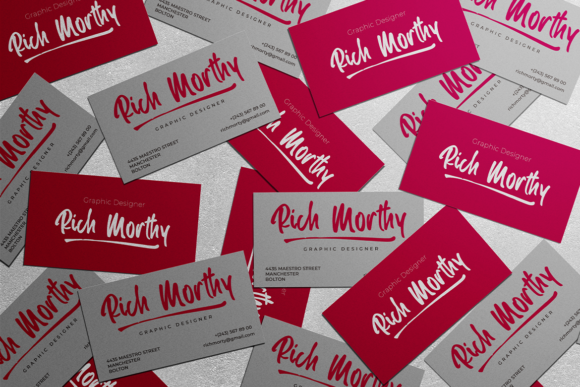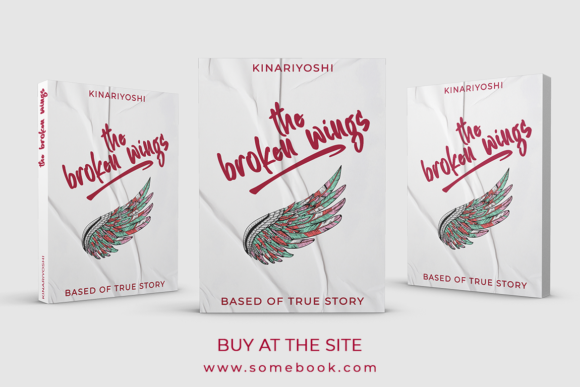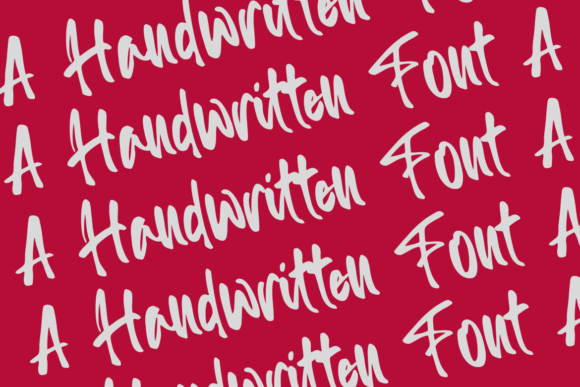
Hikayoshi is an incredibly unique, Japanese inspired display font.
It will look stunning on any food menu, poster flyer or print Hikayoshi is PUA encoded which means you can access all of the amazing glyphs and ligatures with ease.
Hikayoshi Font offers exceptional quality and versatility, making it a valuable addition to your design toolkit. Whether you’re creating for personal projects or commercial use, Hikayoshi Font delivers professional results.